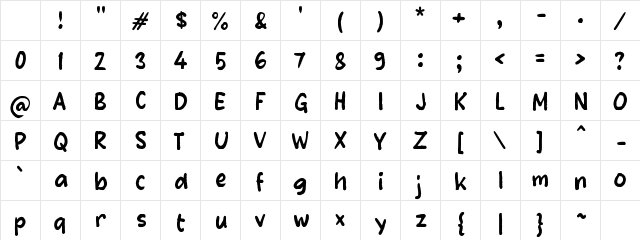
Complete Xaameroo Regular glyph index. Displaying only characters natively supported by Xaameroo Regular font.
Xaameroo is a composed and adaptable typeface that performs quietly and consistently across a wide range of design contexts.